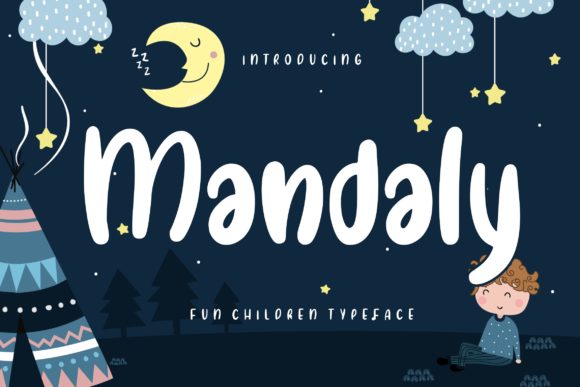
Enter the realm of whimsy and magic with Mandaly Font, the exquisite display font crafted by CreatypeStudio. This font is a testament to creativity and charm, designed to transform your digital designs into captivating works of art.
With its delightful curves and cheerful strokes, Mandaly Font is the perfect choice for injecting a touch of playfulness and warmth into your projects. Its versatile nature makes it suitable for a wide range of applications, from cheerful children's stories to vibrant social media graphics.
Imagine the smiles that will light up the faces of your readers when they encounter your words adorned with the enchanting characters of Mandaly Font. This font has the power to transform ordinary text into captivating visual experiences, leaving a lasting impression on all who behold it.
Unleash your creativity and let the Mandaly Font take you on a journey of imagination. Embrace the boundless possibilities of self-expression and create designs that resonate with your audience, leaving them captivated and inspired.
Don't settle for ordinary fonts; embrace the allure of Mandaly Font and elevate your digital creations to new heights of visual appeal. Join the ranks of discerning designers who recognize the transformative power of typography and unlock the full potential of your creative vision.